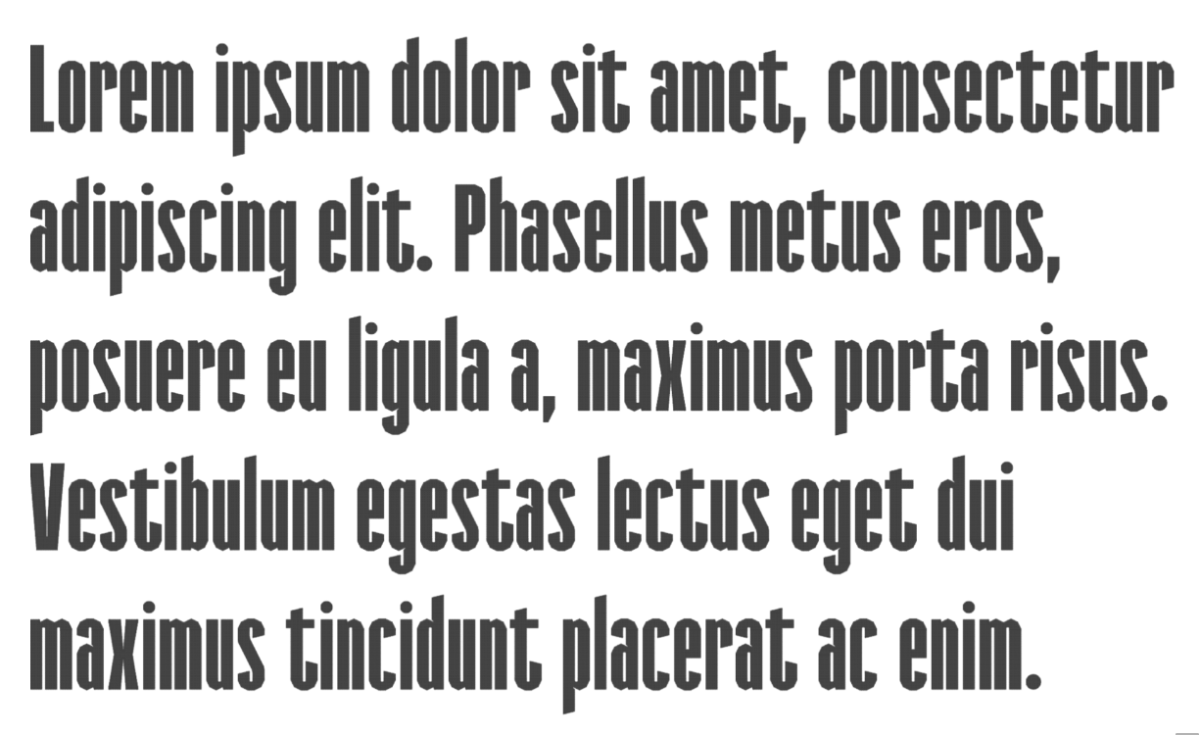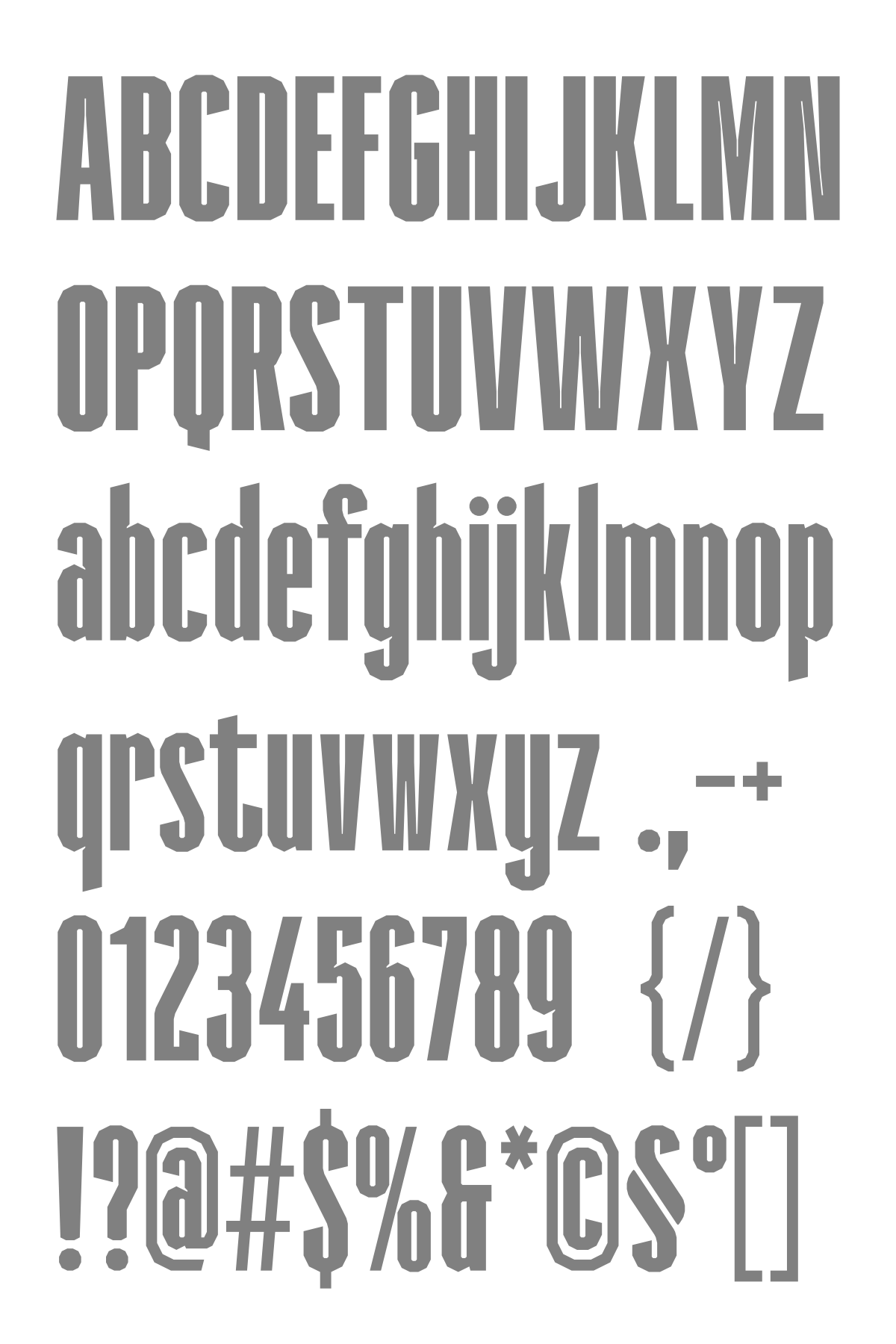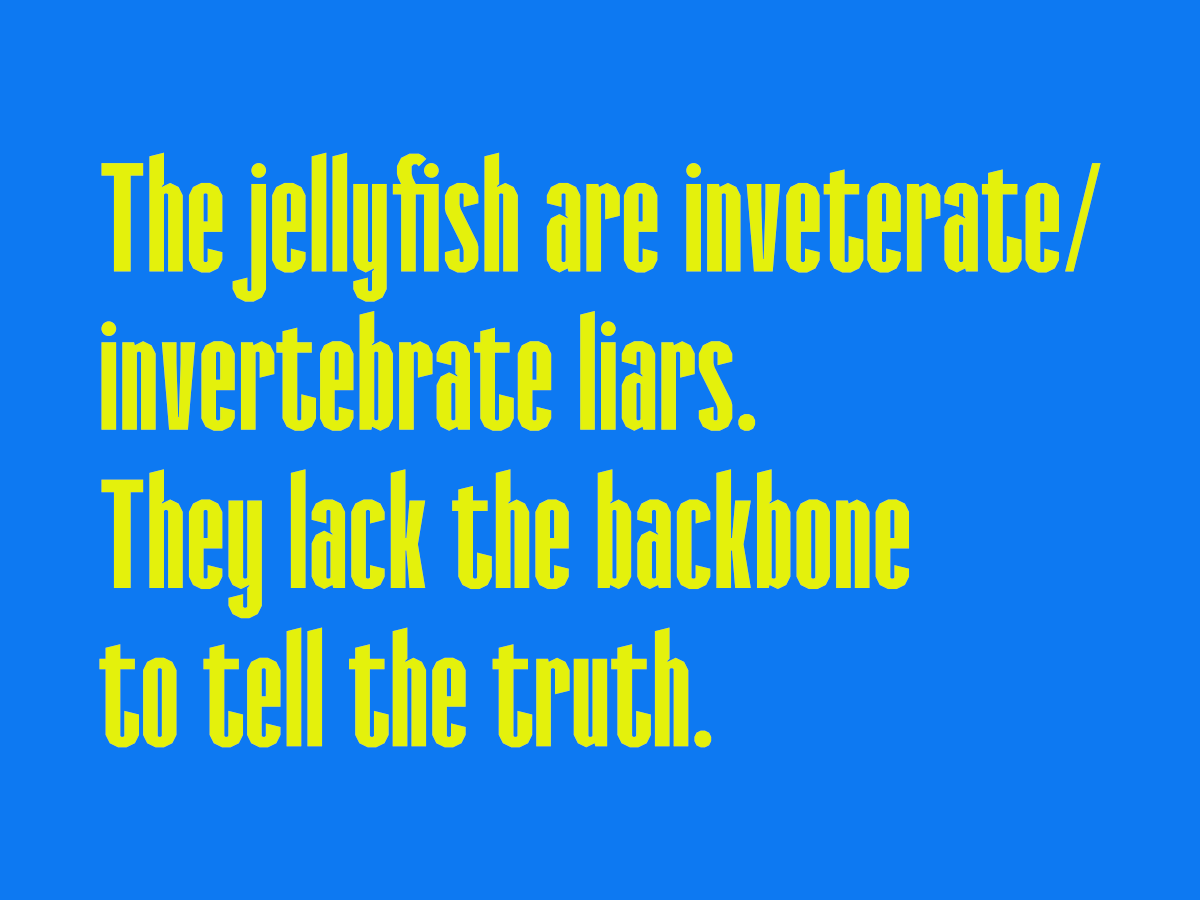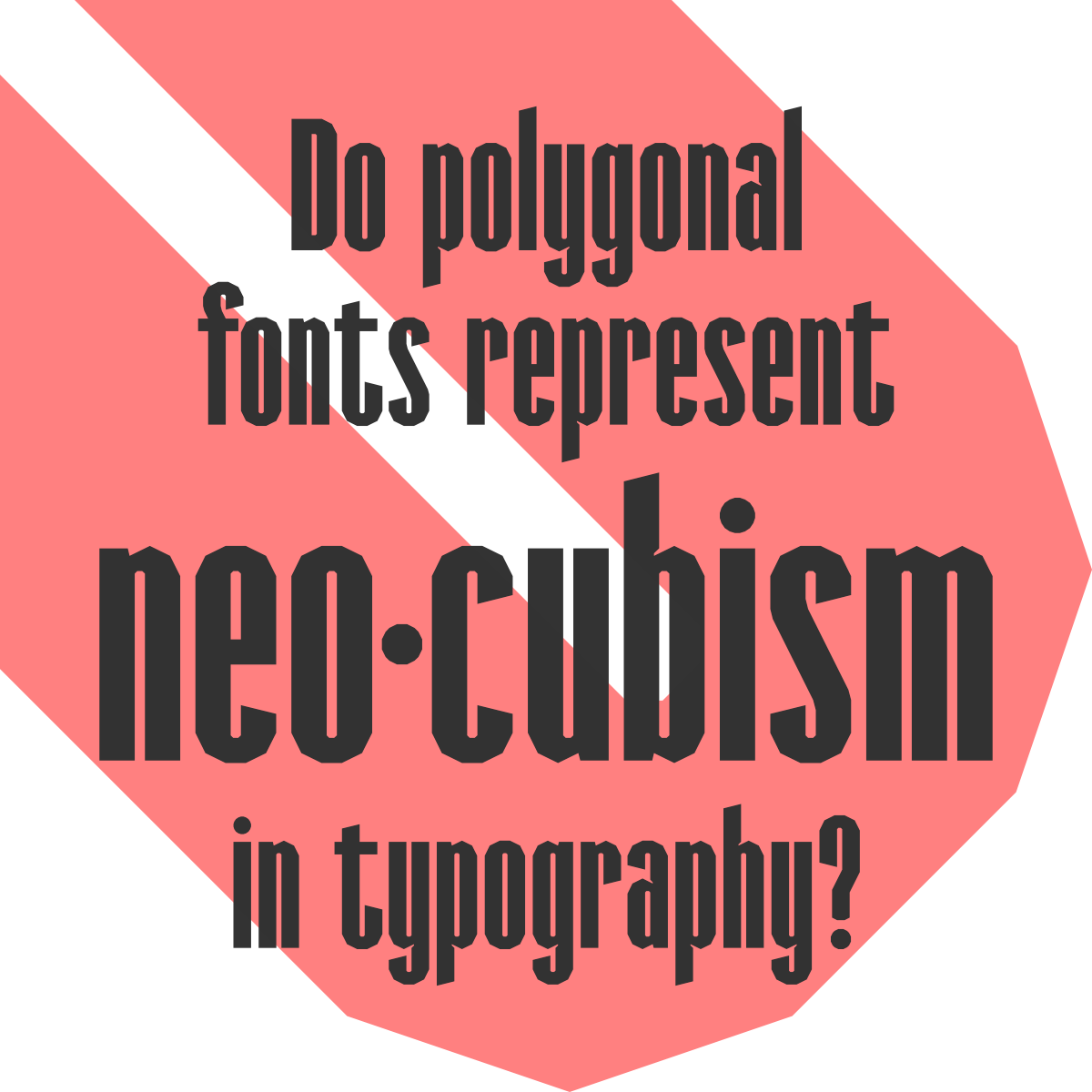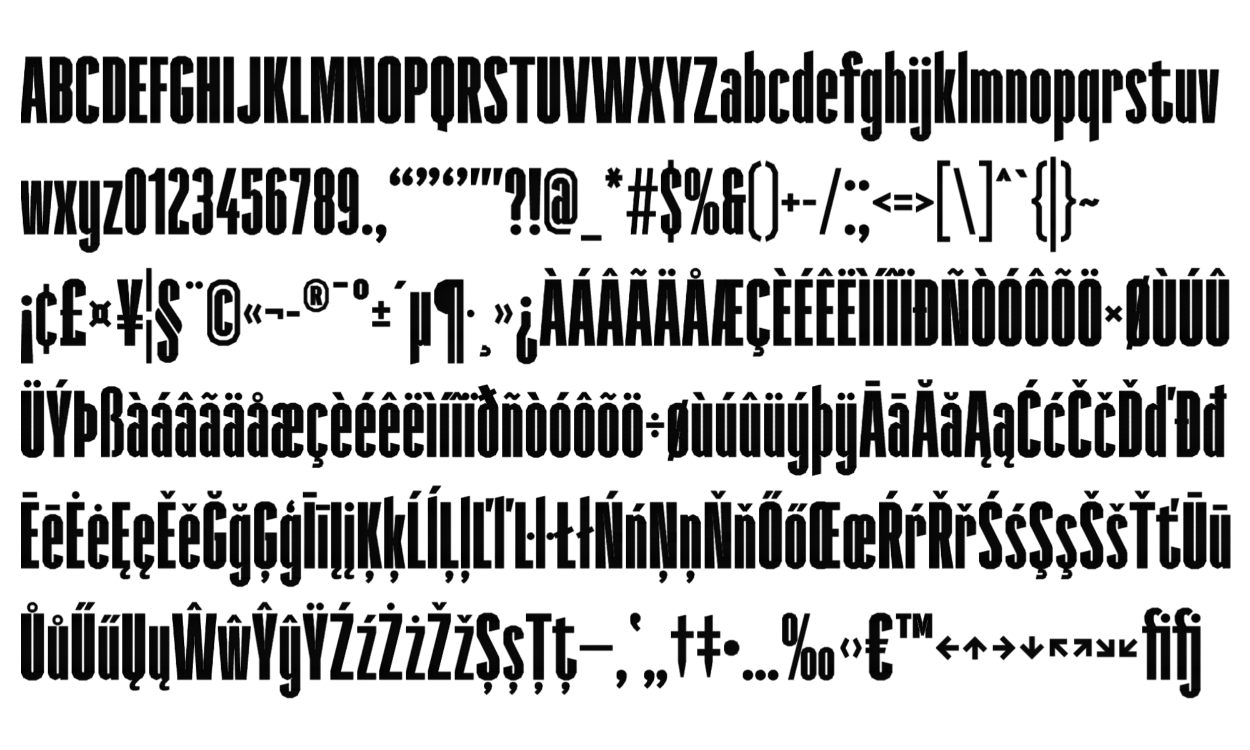
I always wanted to build a retro condensedfont. Given FontStruct's angular possibilities, it is not the easiest style to work with. However, the tall and slender letters have a special allure that designers can hardly resist. They evoke fond memories of vintage text styles from the 1960s and 70s. Retro condensed fonts are widely used for headlines, titles, signage, and branding.
Salice Sans is a low-poly incarnation of the common retro condensed type, and as such, it is rare. Constructing letters with slanted parts (A, N, M, V, W, X, Y) was especially challenging. I learned a good deal by iterating on those letters and getting closer to the optimal shapes.
Another cool angular design! The weight is well balanced. Love the inktraps too—though I am curious as to whether leaving them out on the M and N was a stylistic choice or a technical limitation. Anyways, thanks for keeping fontstruct alive! First thing TP worthy I’ve seen in a minute.
@Gr4ftY (groan): Thank you for your comment. The strokes of the capitals are one brick thicker than those of the lowercase. I wasn't sure about the balance. A few capital letters feel too strong, even after modifications. FontStruct's Preview is not the best option for fine-tuning. I prefer to install the font and print out sample texts. I guess the inktraps should be reworked and made more uniform. The M and N likewise. Let's see what I can do. Thank you for bringing it to my attention.
Look, on the topic of M & N, you can do whatever you want—I’m not the best voice when it comes to consistency. I like the font either way, and I think whatever you settle with will be great. For all I care, you could treat the whole counter as an, albeit very wide, inktrap—and have a small amount of space in between where they intersect—
But I’m just throwing ideas around! Anyways, this “low-poly” theme is interesting, and I’m curious to see where it goes. Good luck!
@Gr4ftY (groan): Thank you. Last night I reworked the ink traps for all letters concerned (A, M, N, V, W, Y, etc.). I believe they look better than before. I need to print out some samples and check. The low-poly theme is trending. I wrote a short piece about it at Mithrandir and gave a list of low-poly fonts. I didn't use the term “low-poly” there, however. I think FontStruct is particularly well-suited for this theme, and I plan to build more low-poly fonts.
@four: Thank you for your feedback. I studied a few tall and slim fonts, and learned how to manage tight spaces or extreme angles. I'll make a few sample pics later.
I have updated the following glyphs: N, v, w, and 7. The capital N is a bit wider and feels more natural. The lowercase w looked especially feeble; it gained a bit of girth in the mid-section. Number seven is slightly thinner now. These modifications are hardly noticeable, yet important steps towards balance and harmony.
@Bryndan W. Meyerholt (BWM): That's a very good point. It should be the same-size single dot, indeed. The dots of the diaeresis can be smaller. What about the middle dot for Catalan?
@Frodo7 i'd say that the dot for “l·l” (catalan) should be the same as “.” and “ŀ” should also have the dot the same size as the “.” given that “ŀ” comes from catalan codepages
also the middle dot is used in maths to for multiplication, such as 34x·927=2888
@Bryndan W. Meyerholt (BWM): Thank you for your comment. You dropped a pebble into my calm and settled pond and stirred up a lot of things. As a result, I made the dot the same size across the font, redesigned the comma/apostrophe and the period, and resized the arrows. After all these modifications, I learned the following:
In professional type design, the dot on the i (called a tittle) should usually not be the exact same size as the diacritic dot above on Ė and Ż. Although both are dots, they serve different visual and structural roles. The tittle on a lowercase i is an integral part of the letterform itself. Because it sits directly over a thin, single vertical stem, it is often digitally and optically adjusted to match or slightly exceed the stem's thickness to remain highly legible at small sizes. (source: Wikipedia)
Multinational typography has so many fine details to consider. Thus, I restored the original dots for the i and j.
@Bryndan W. Meyerholt (BWM): Yes, I tested that version too. It didn't look good. Overall, the current design of Salice Sans is more consistent than Arial Narrow Bold or Impact.
I asked a rhetorical question: Do polygonal fonts represent neo-cubism in typography? The short answer is no.
The Turkish alphabet has capital İ and lowercase ı, which don't appear to be in the font as of writing this.
how did you make an fj ligature?